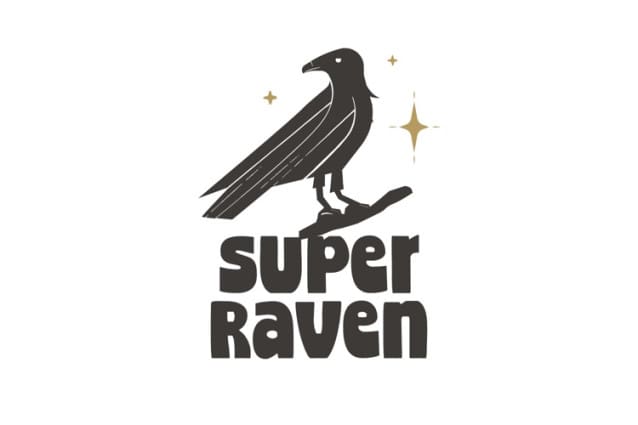
Super Raven Font
Super Raven Font is a bold, fun font with sharp angles and a unique, angular design. It is inspired by the sleek and powerful form of the raven, and is perfect for creating headlines, logos, and other eye-catching designs.